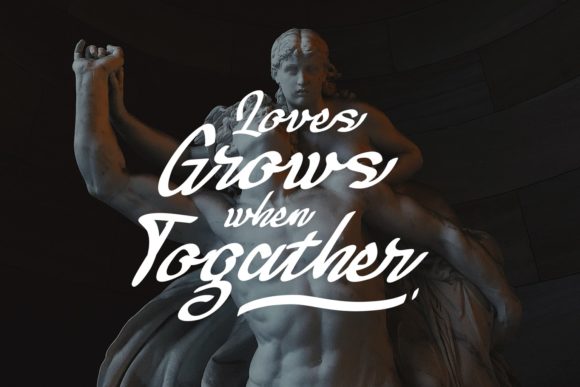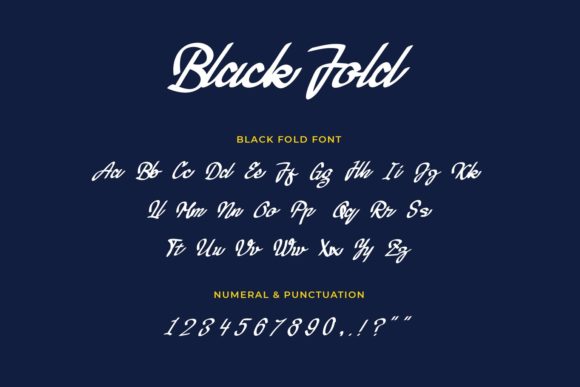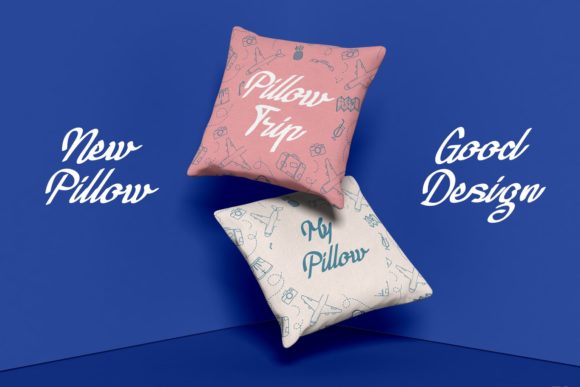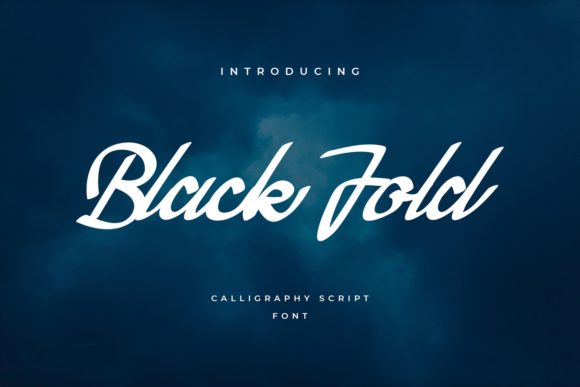
The Ultimate Guide to Black Fold Font: Unleash Your Creativity
I’ll never forget the time I was working on a project for a client who wanted a bold, eye-catching font to make their brand stand out. I spent hours scouring the internet for the perfect font, but nothing seemed quite right. That was until I stumbled upon Black Fold Font. This stunning paint brush script font has been a game-changer for my designs ever since. In this article, I’ll share with you why I love Black Fold, its features, and how to make the most of it in various design platforms.
An Honest Review of Black Fold Font
What I Love About Black Fold ✨
• 💥 **Bold and stylish**: Black Fold makes a statement with its confident, brush-script style that’s perfect for headlines, titles, and emphasis text.
• 🎨 **Versatile**: Whether you’re designing for digital or print, Black Fold adapts seamlessly to various mediums and design applications.
• 🤝 **Easy to read**: Despite its bold nature, Black Fold remains surprisingly legible, making it suitable for body text and longer paragraphs.
• 🔥 **Attention-grabbing**: This font is sure to turn heads and capture attention, adding a touch of sophistication and elegance to your designs.
While Black Fold is an exceptional font, there are a few minor considerations to keep in mind:
• 🤔 **Limited use in small sizes**: Due to its bold nature, Black Fold may not be the best choice for very small font sizes or detailed designs.
• ⚠️ **Occasional inconsistencies**: As with any script font, there might be slight inconsistencies in letter spacing or kerning, requiring manual adjustments.
The Story Behind Black Fold Font
Black Fold Font was created with the intention of capturing the essence of hand-painted signs and elegant calligraphy. The designer aimed to create a font that would exude confidence, sophistication, and a touch of playfulness. Through its bold, brush-script style, Black Fold achieves just that, making it a versatile addition to any designer’s toolkit.
Q: What type of designs is Black Fold best suited for?
A: Black Fold is perfect for bold, eye-catching designs such as logos, headlines, titles, and emphasis text. It’s ideal for crafters, digital designers, and anyone looking to add a touch of elegance to their projects.
Q: Is Black Fold a difficult font to read?
A: Despite its bold nature, Black Fold remains surprisingly legible, making it suitable for body text and longer paragraphs. However, it’s best used in moderation and in combination with other fonts for optimal readability.